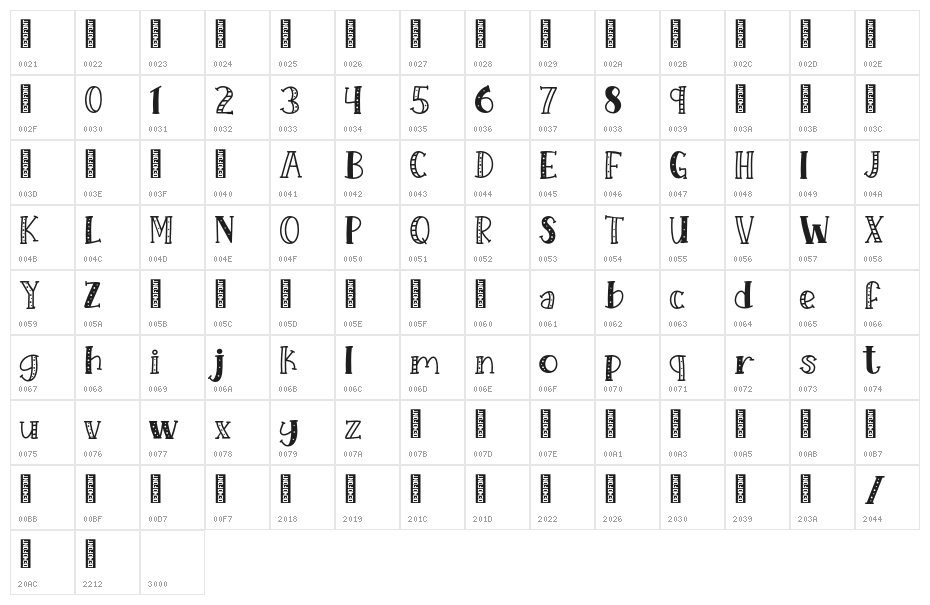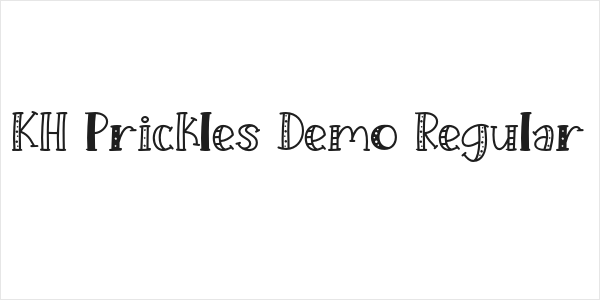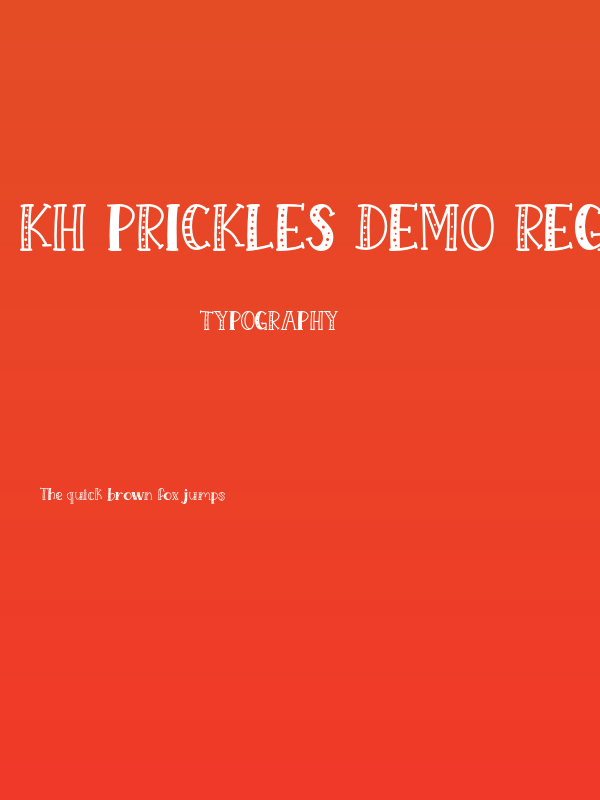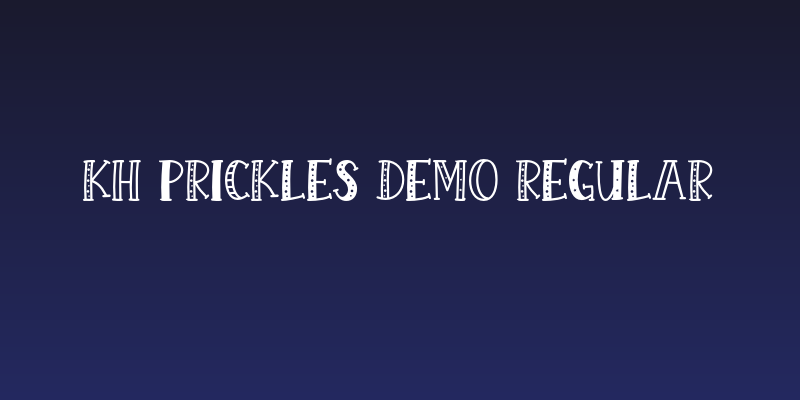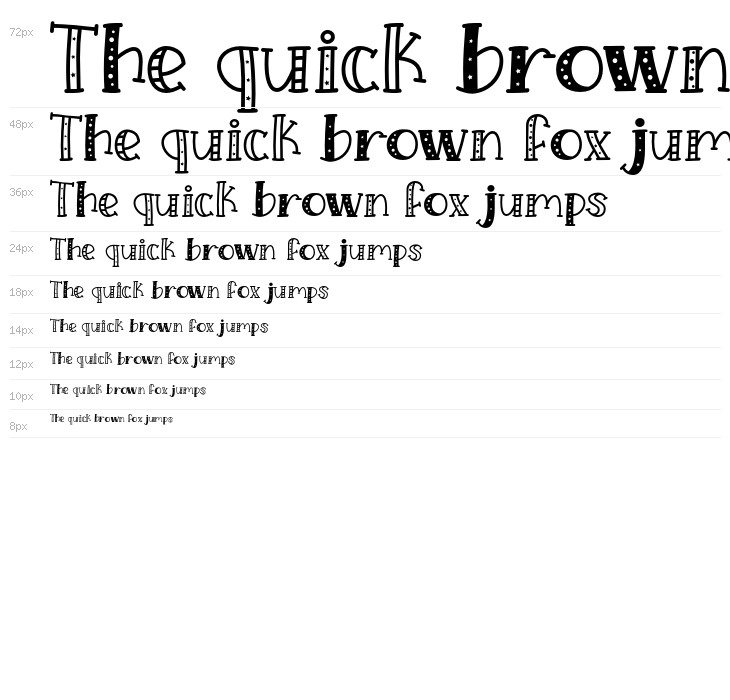
KH Prickles Demo Regular Font
KH Prickles Demo Regular Description
This font features a playful and whimsical design, characterized by its decorative elements and unique letterforms. Each character is adorned with dots and lines, adding a quirky and fun aesthetic. The uppercase letters are bold and eye-catching, while the lowercase letters maintain a consistent style with a slightly more relaxed appearance. The numerals follow the same decorative theme, ensuring a cohesive look across all characters. This font is perfect for projects that require a touch of creativity and individuality.
| Overall Style | Whimsical, Playful, Creative |